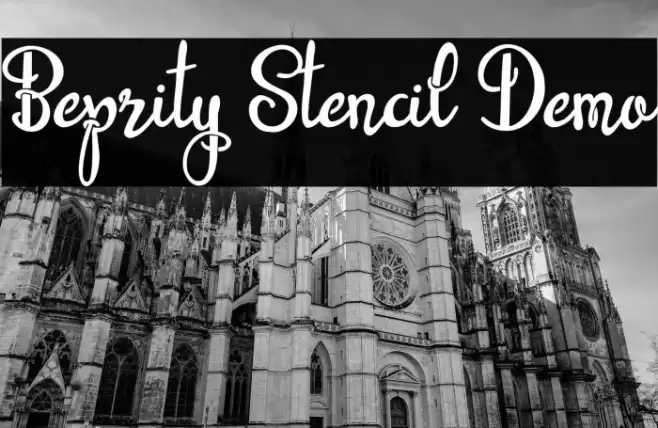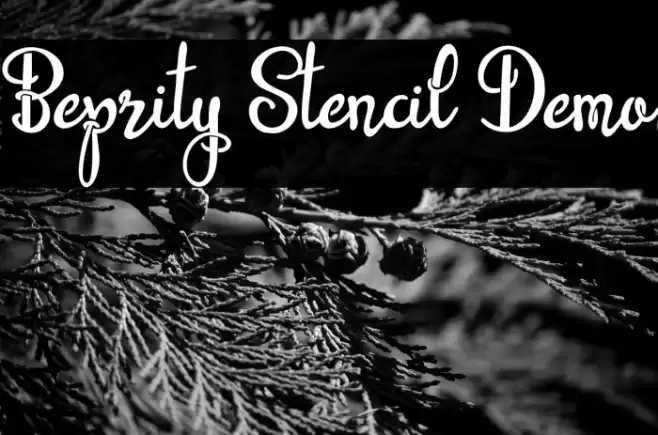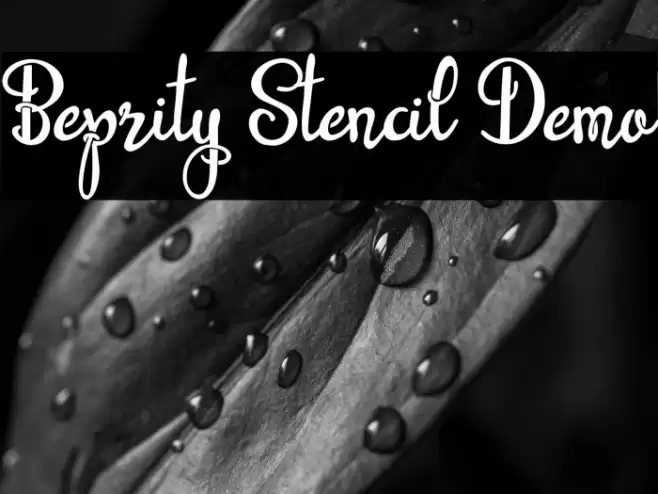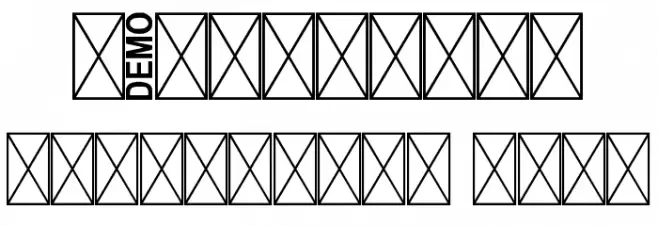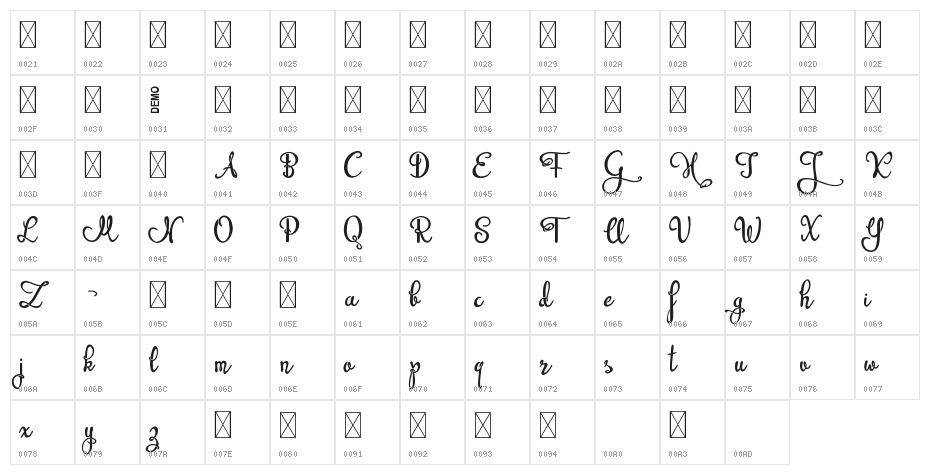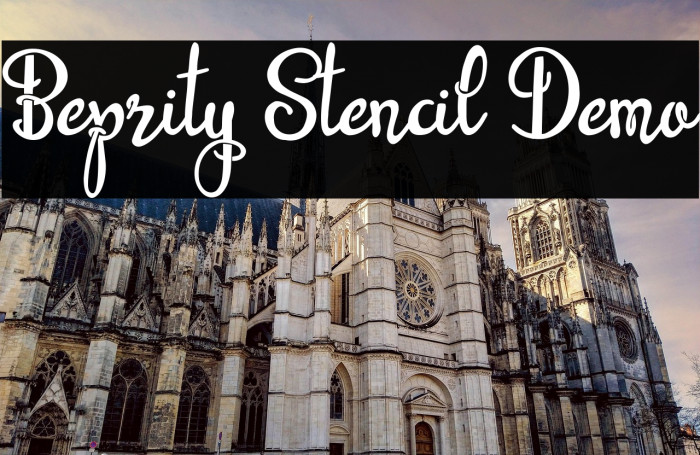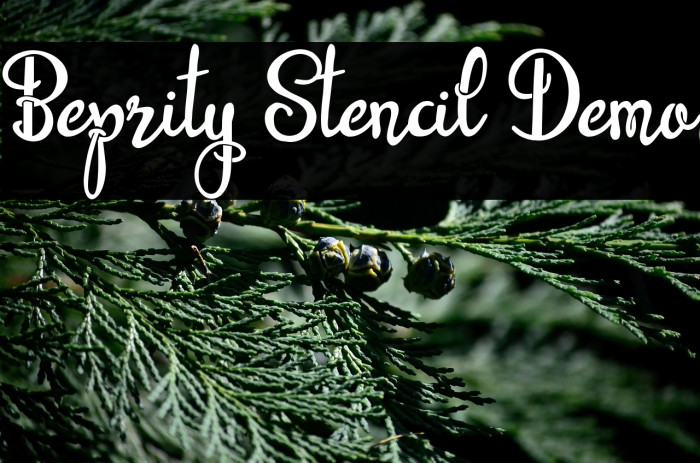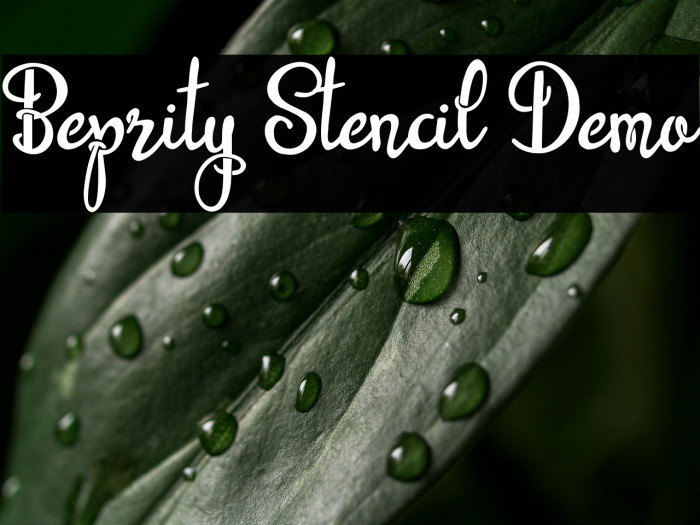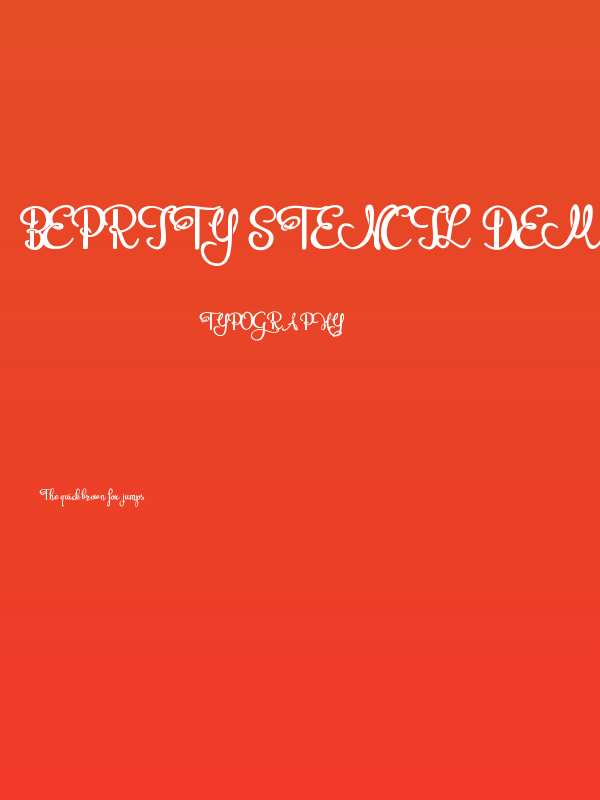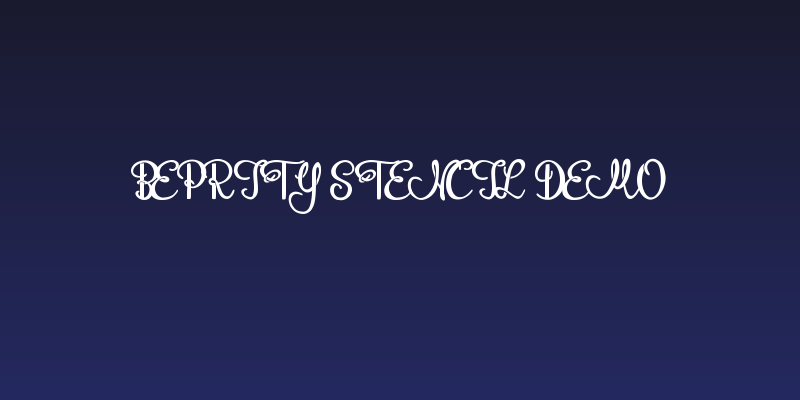
Beprity Stencil Demo Font
Beprity Stencil Demo Description
This font features a decorative and elegant script style with a stencil effect, characterized by its flowing, interconnected letterforms. The uppercase letters are ornate, with elaborate swashes and loops that give a sense of movement and grace. The lowercase letters maintain a consistent style, with smooth curves and a slightly condensed form. The font includes a full set of uppercase and lowercase letters, numbers, and a selection of special characters, making it versatile for various design needs. Its unique stencil cutouts add a modern twist to the classic script style, making it suitable for eye-catching designs.
An elegant script font with a modern stencil effect, featuring ornate swashes and loops from Uncategorized fonts.
- Proposed Projects: Ideal for wedding invitations, luxury branding, packaging design, and decorative posters.
- Use Case: Logos, Invitations, Decorative Text